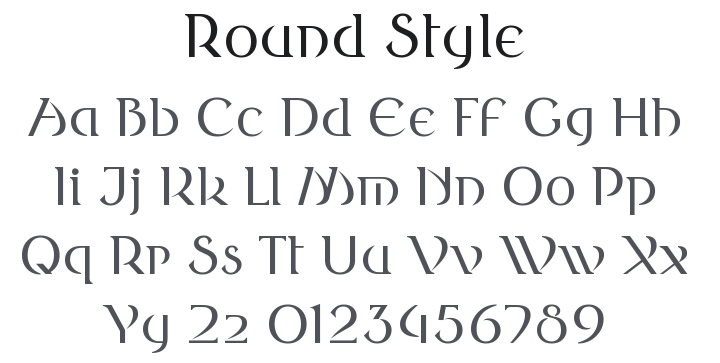
Round Style Font Family
by Wojciech Kalinowski
Round Style Font Family
About Round Style
Round Style is font based on Roman Square Capitals and my older font from Nova Family fonts.